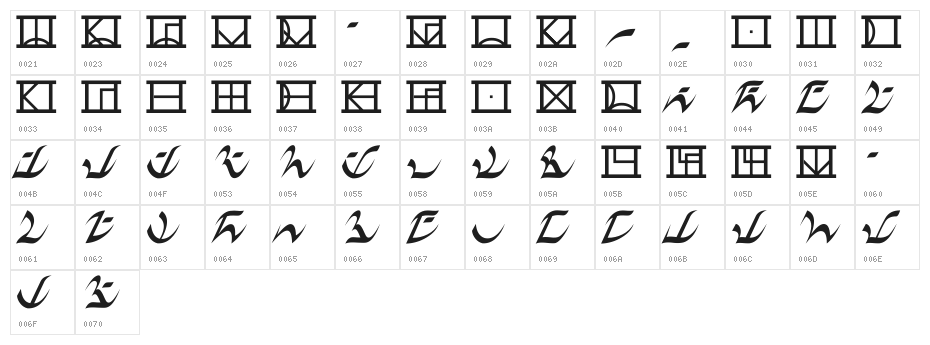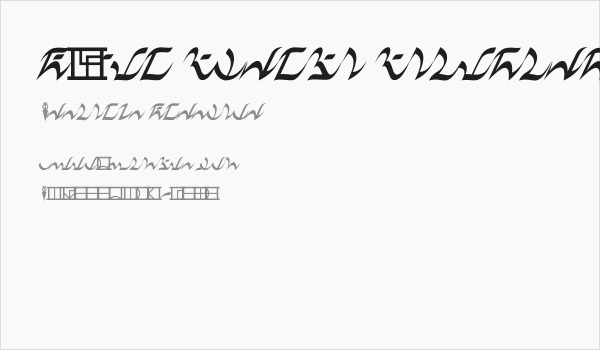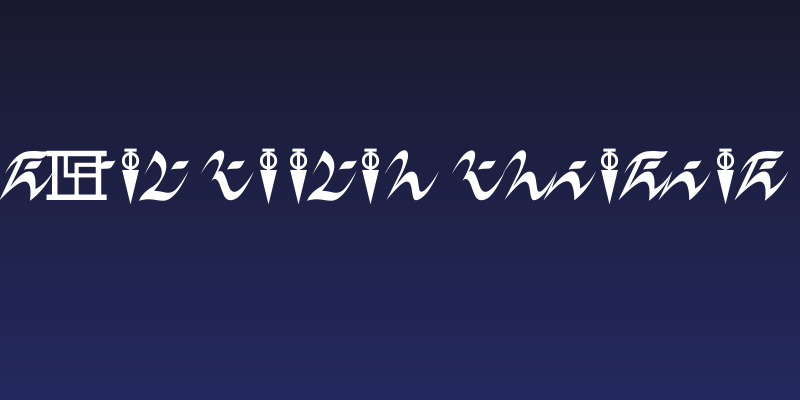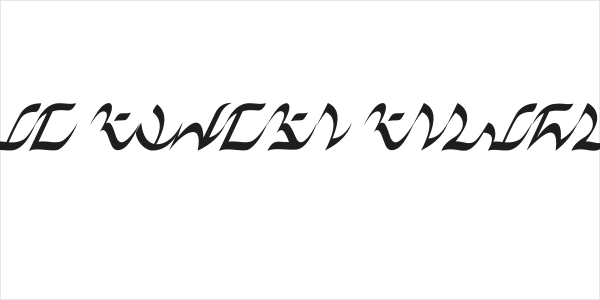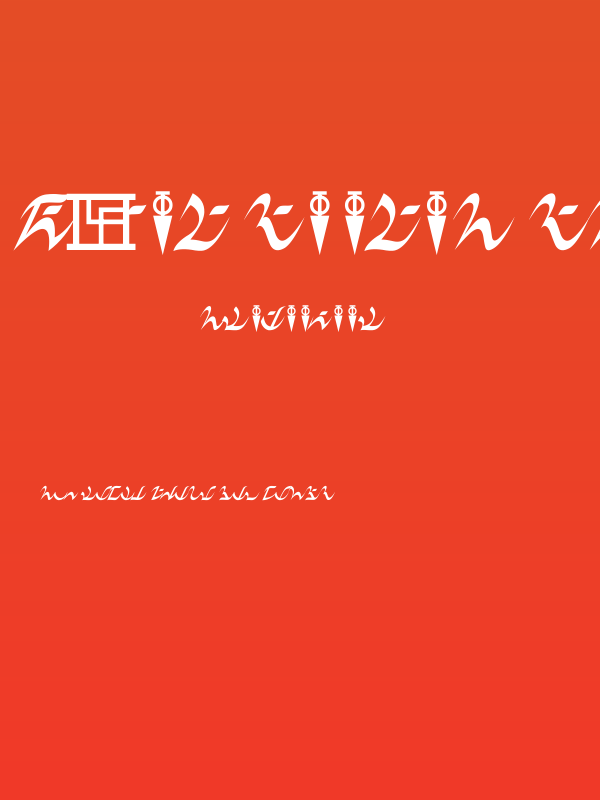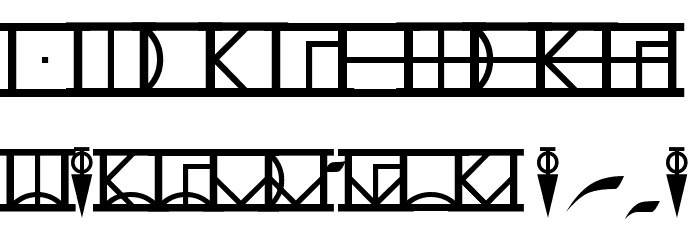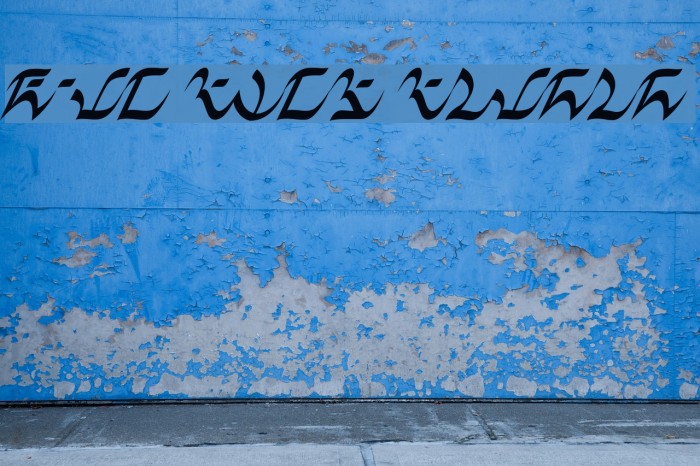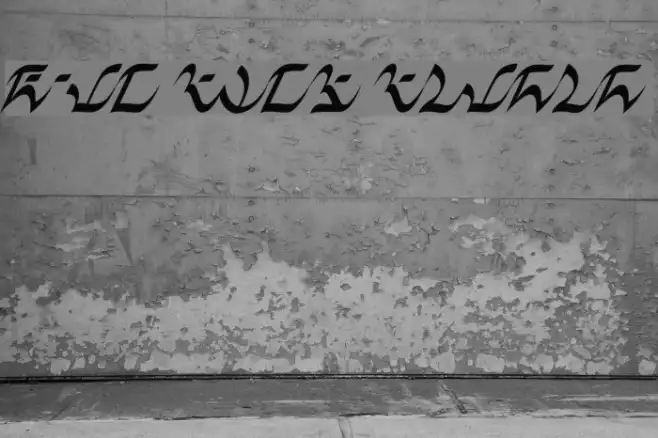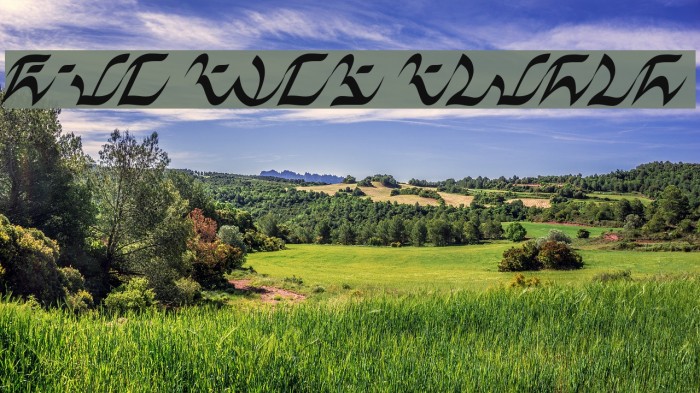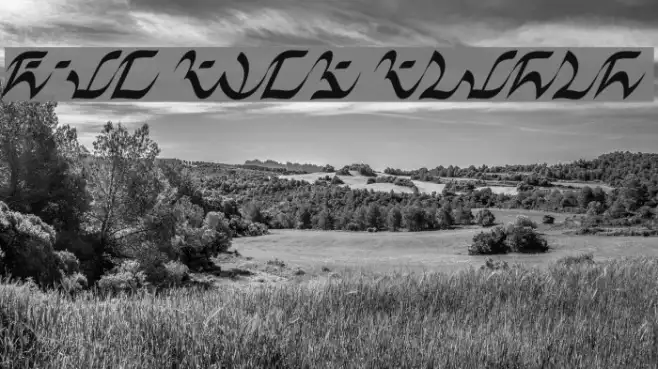
D'ni Script Standard Font
D'ni Script Standard Description
This font features a highly decorative and artistic style, characterized by its intricate and flowing script. The letters are crafted with elaborate curves and sharp points, giving it a unique and striking appearance. The uppercase letters are particularly ornate, with exaggerated flourishes that extend beyond the baseline and x-height. The lowercase letters maintain the same level of detail, creating a cohesive and visually engaging typeface. The numerals and special characters follow the same design principles, ensuring consistency throughout. This font is ideal for projects that require a touch of elegance and sophistication, such as invitations, branding, or artistic displays.
| Use Case | Logos, Artistic displays, Invitations |
| Proposed Projects | Ideal for invitations, branding, artistic displays, and any project requiring elegance. |